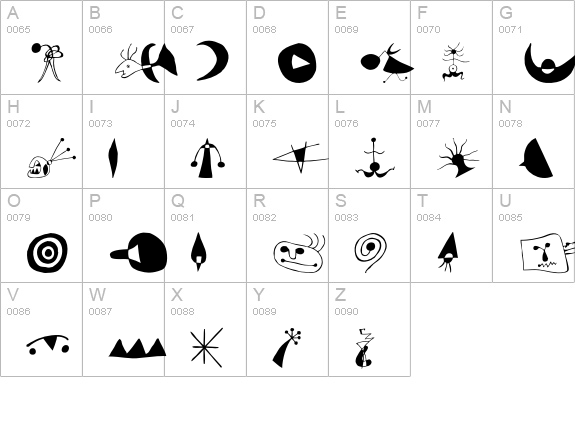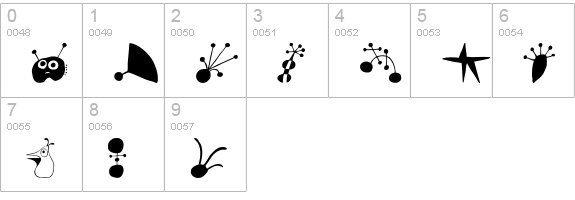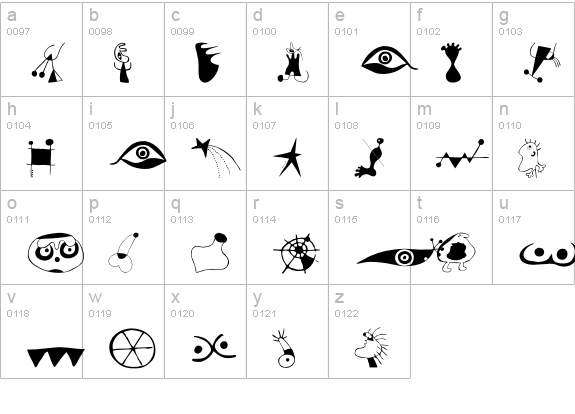
MiroExtras Font Details
MiroExtras font is a whimsical and versatile typeface that adds a playful touch to any design project. With its charming and unique characters, this font is perfect for creating eye-catching headlines, logos, posters, and more. MiroExtras is not only stylish but also incredibly functional, making it a must-have for any designer looking to add a touch of creativity to their work. The best part about MiroExtras font is that it is completely free! That's right, you can download this delightful font at FontsMarket.com without any cost. So why wait? Add MiroExtras to your font collection today and let your creativity soar.